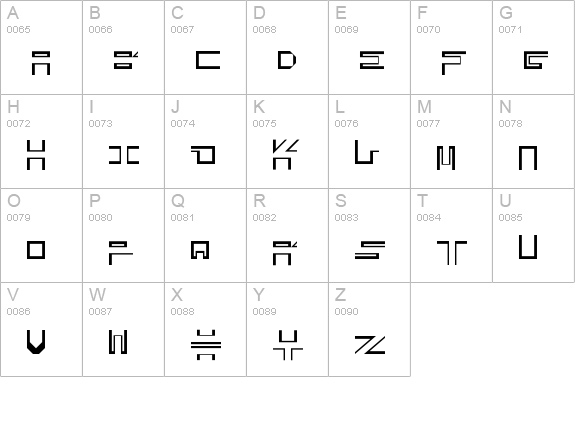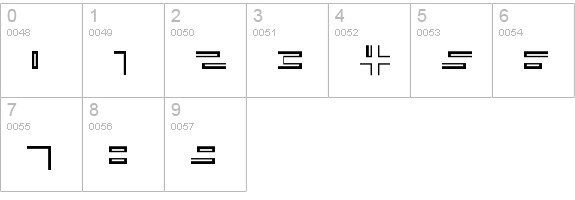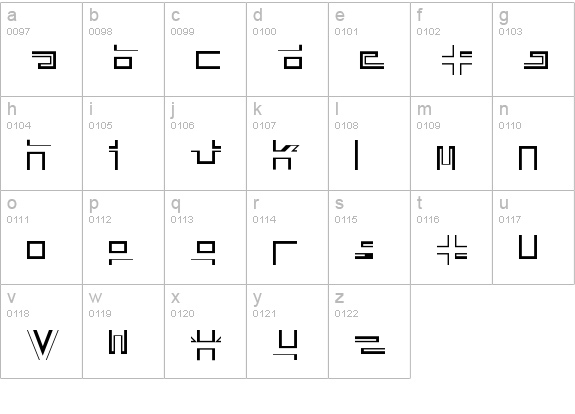
City-Habitation font captures the essence of urban living with its sleek and modern design. This versatile typeface is perfect for creating eye-catching headlines, posters, and branding materials. Its clean lines and contemporary style make it a popular choice among designers looking to add a touch of sophistication to their projects. What sets City-Habitation font apart is that it is available for free download at FontsMarket.com. This means that you can easily access this stylish font without any cost, making it a valuable addition to your font library. With City-Habitation font, you can bring a touch of urban flair to your designs and make a lasting impression on your audience.